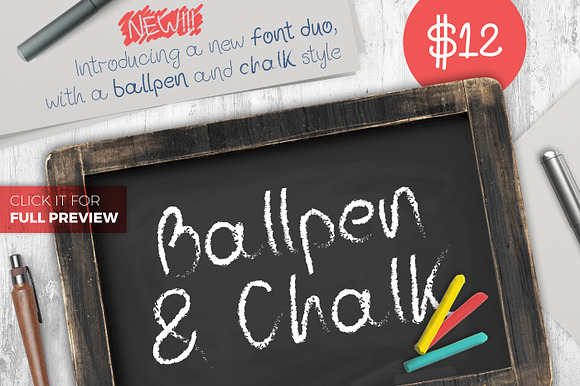
Ballpen and Chalk Typeface
Glad to introduce to you a new handwritten typeface duo formed from Ballpen and Chalk styles. A great combination for playful projects, Ballpen and Chalk offers a realistic feel style that can complete your projects.
The Chalk style comes in a one weight only, full basic alphabet English letters, including both uppercase and lowercase letters, numbers and basic punctuation marks.
The Ballpen style is available in 5 weights, named after the basic pen weights: 0.2mm, 0.4mm, 0.6mm, 0.8mm and 1mm. You will find it as 02, 04, 06, 08 and 1, because dots and commas weren't allowed in a font's name and naming in with mm after it was confusing.